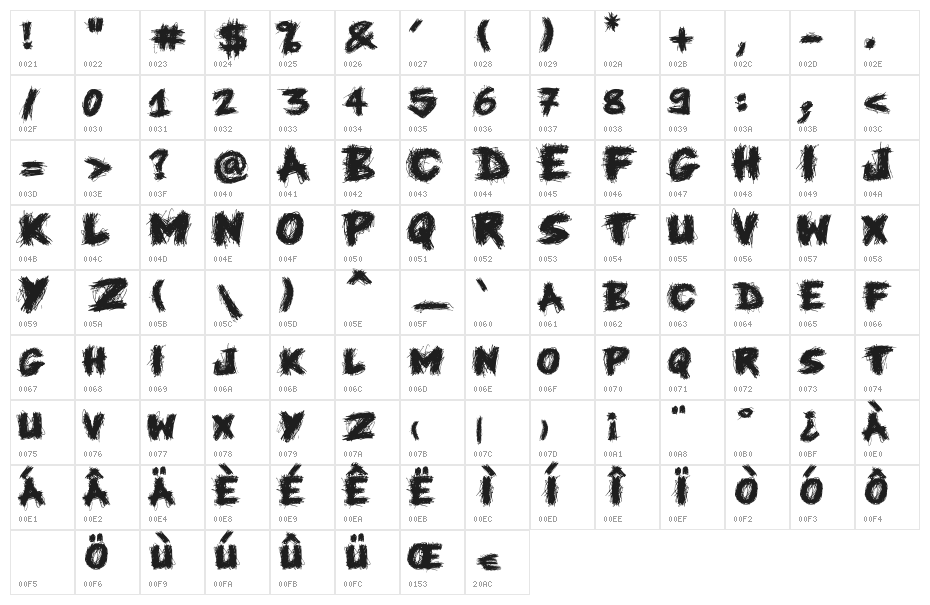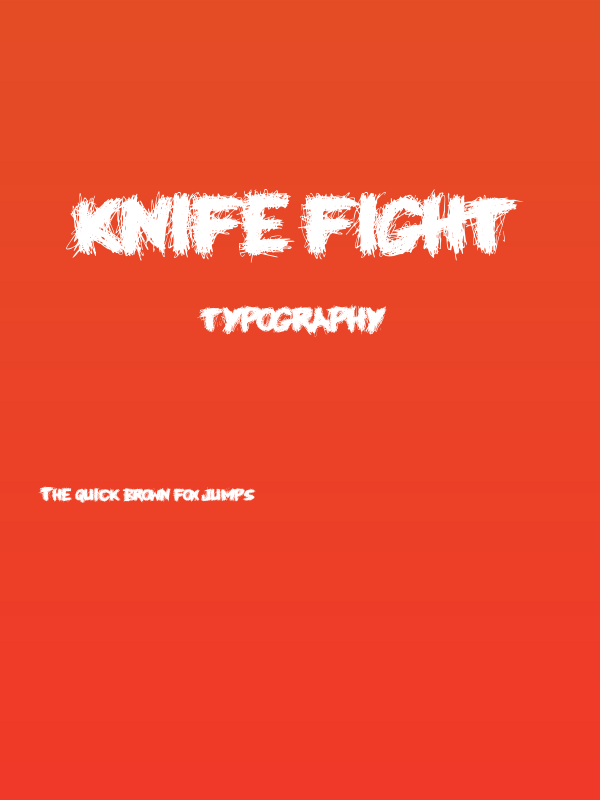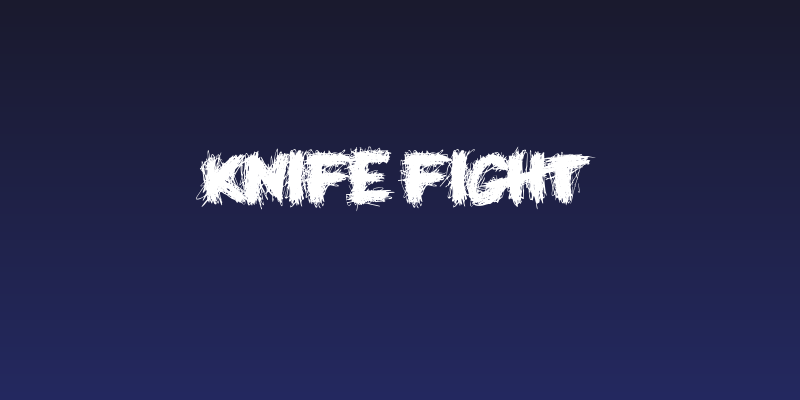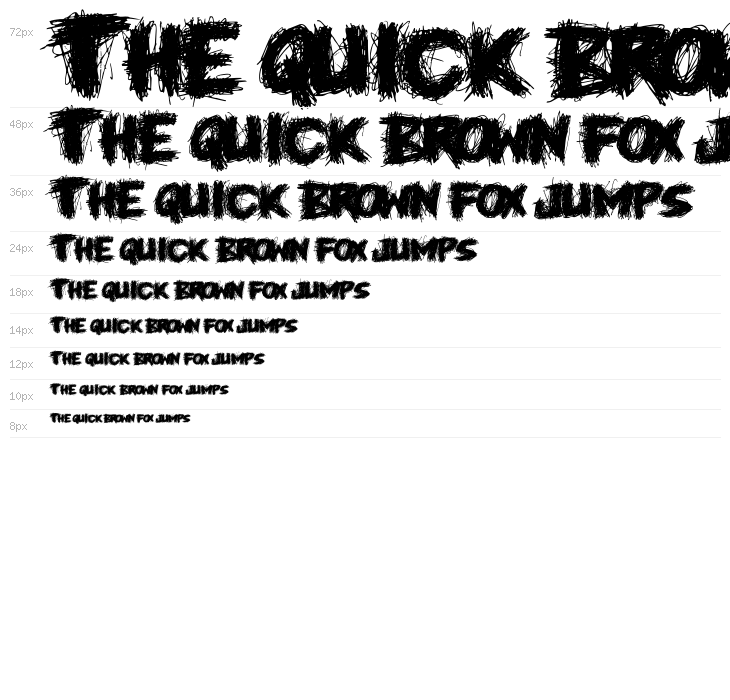
Knife Fight Font
Knife Fight Description
This font features a highly textured and chaotic design, reminiscent of rough brush strokes or scribbles. The characters are bold and jagged, with an aggressive and dynamic appearance. Each letter is uniquely crafted, giving the font a hand-drawn feel that is both raw and energetic. The uppercase and lowercase letters maintain a consistent style, while the numbers and special characters follow the same rugged aesthetic. This font's distinctive look makes it stand out, perfect for projects that require a strong visual impact.
| Overall Style | Modern, Grunge |
| Proposed Projects | Ideal for edgy posters, album covers, graffiti art, or any design needing a rebellious touch. |